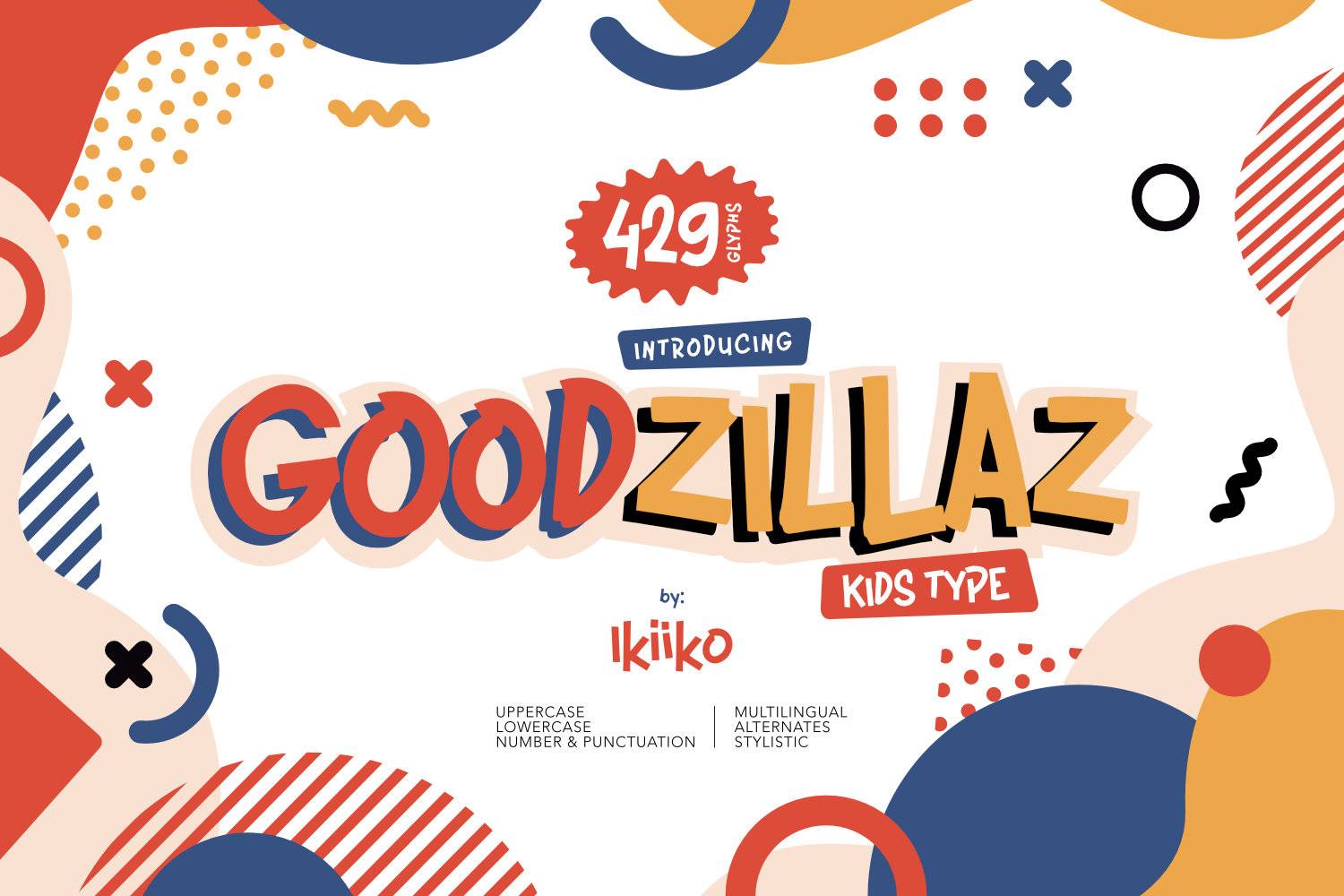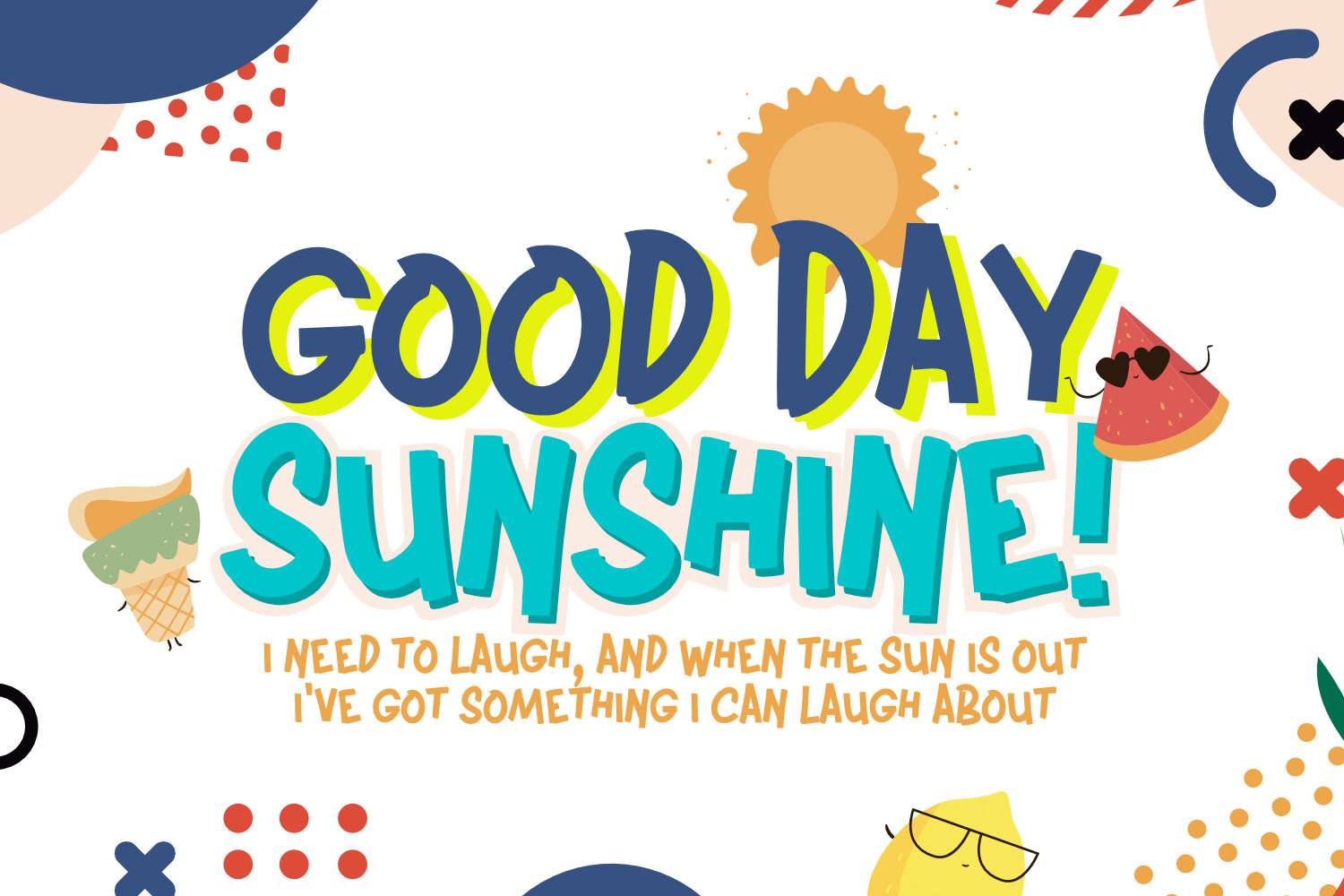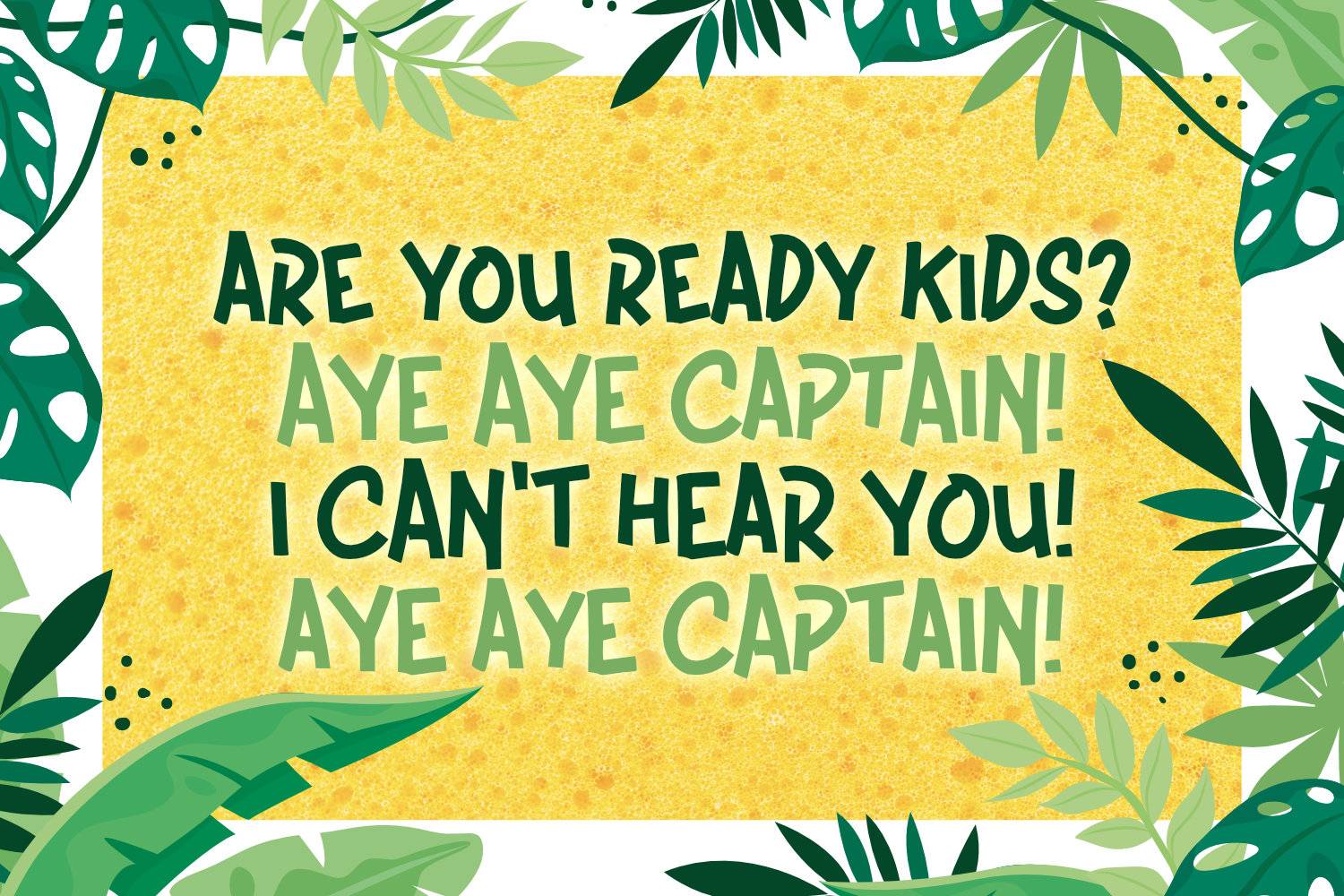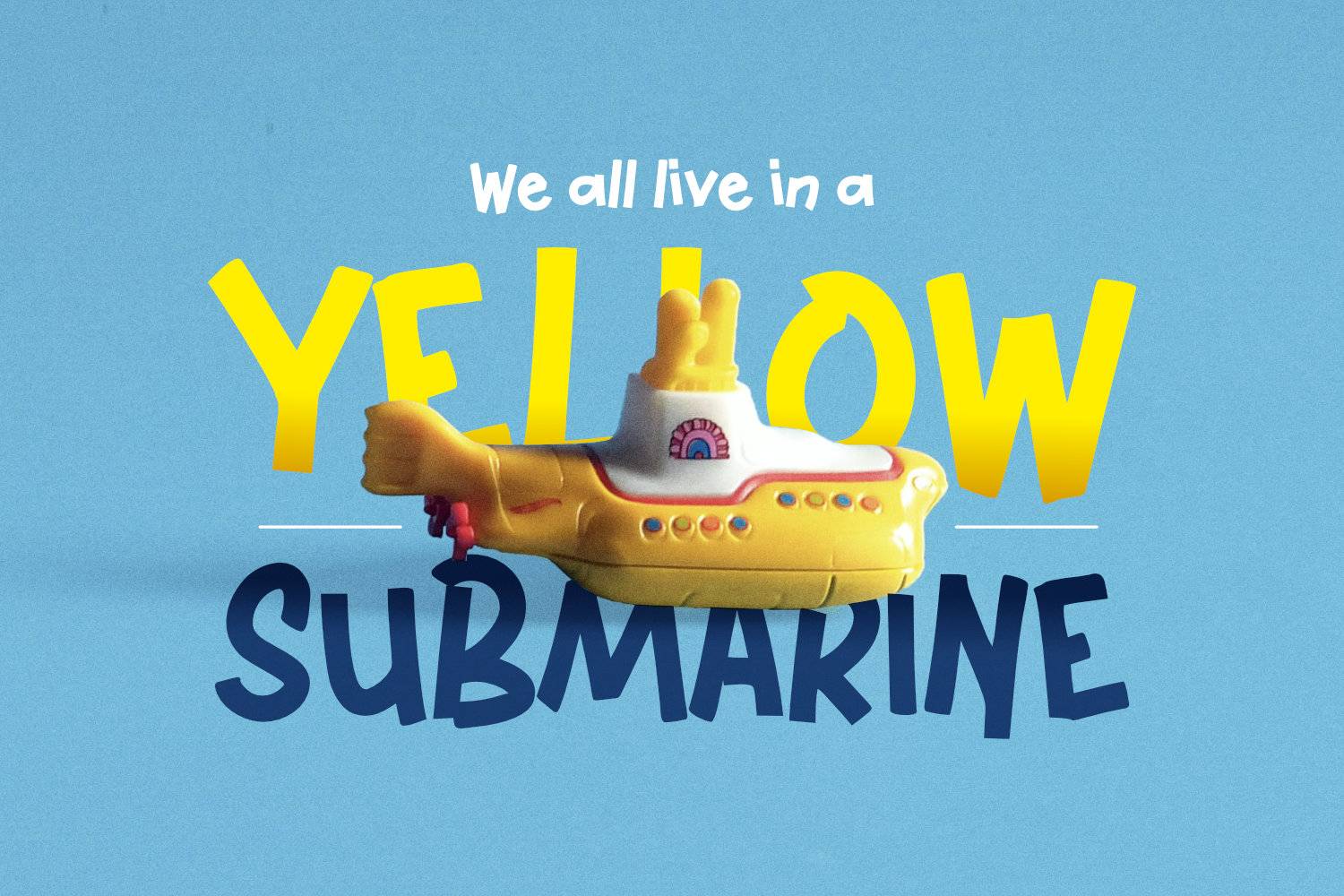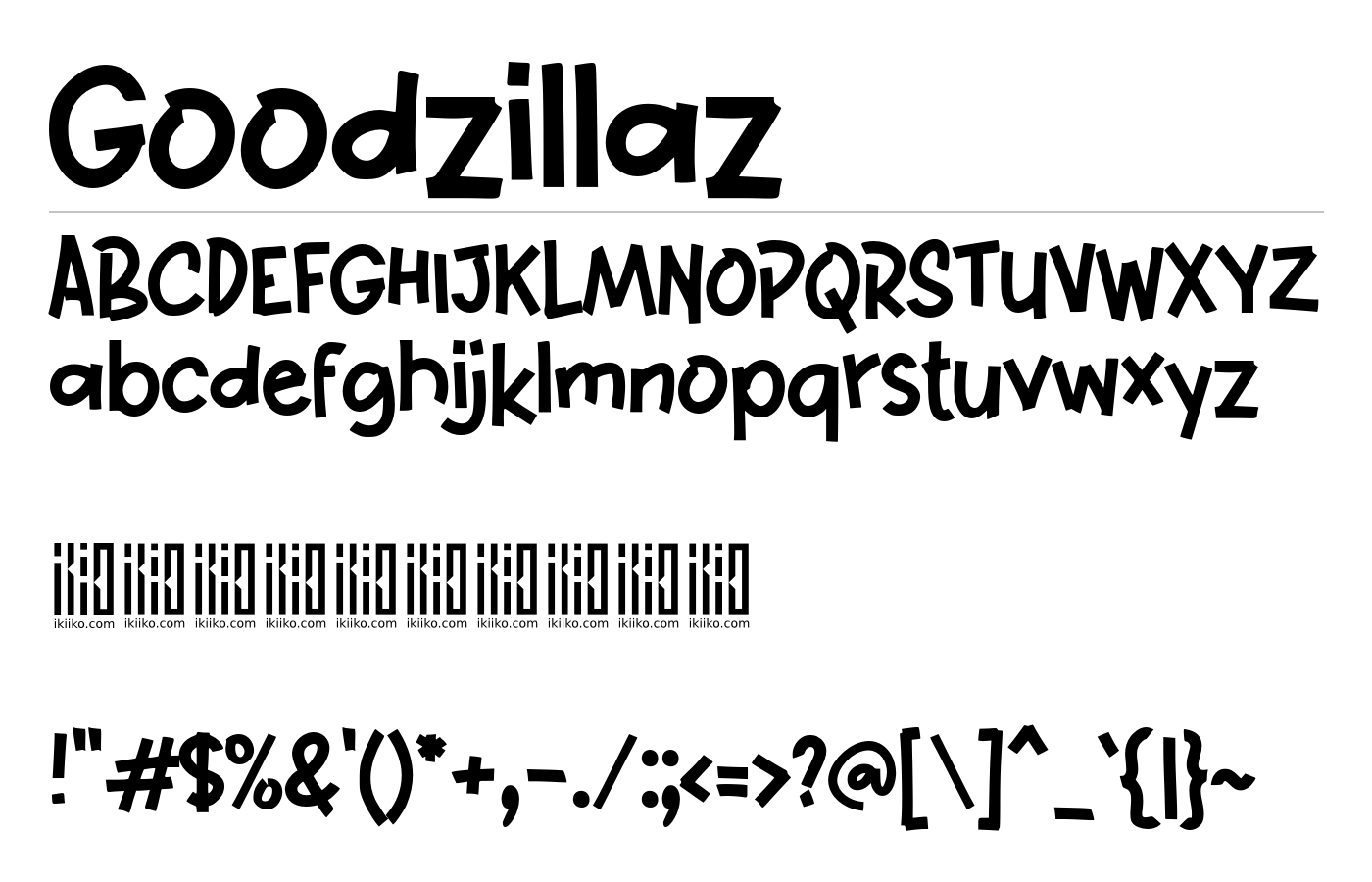
Goodzillaz is a playful and bold sans serif font characterized by its uneven, quirky letterforms that bring a sense of fun and informality. Its thick weight and irregular shapes make it perfect for eye-catching headlines, posters, or branding projects that aim to convey a lively, youthful, and approachable personality. This font works best where creativity and a casual vibe are desired, making it ideal for children’s products, entertainment, or informal designs.
Goodzillaz Font
About Goodzillaz Font
| Font family | Goodzillaz Font |
| Release date | 2021-11-08 |
| Designer | Wahyu Eka Prasetya, Andhika Pradana |